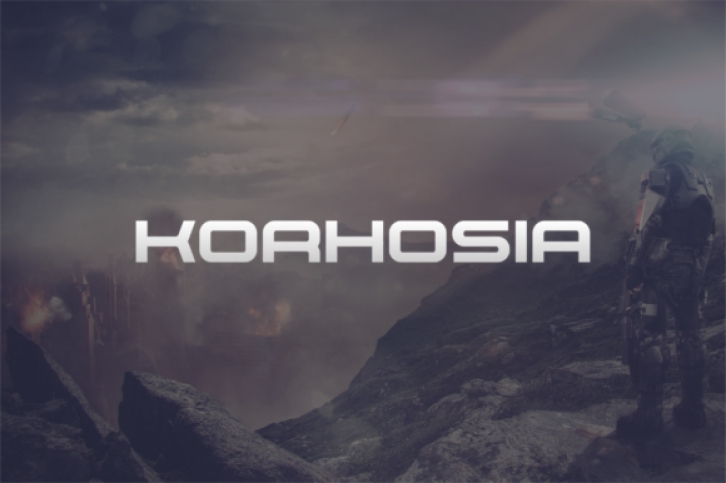
Korhosia is a modern, elegant and futuristics display font. This original look will appeal to a wide range of crafty ideas, from letterheads and titles, to stationery.